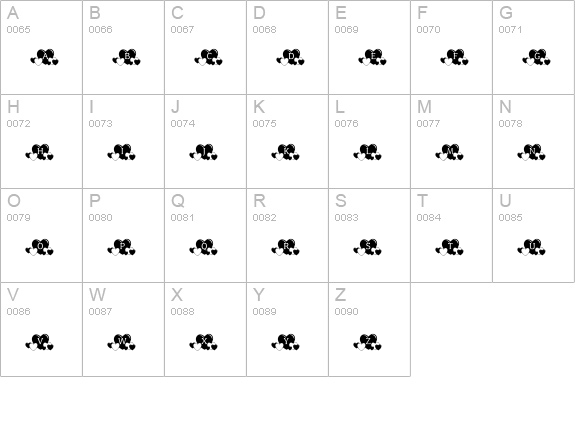
KR Lots Of Hearts Font Details
Introducing KR Lots Of Hearts font, a whimsical and charming typeface that is sure to capture hearts with its playful design. This delightful font is perfect for adding a touch of love and joy to any project, from greeting cards to posters to social media graphics. With its unique heart-shaped details and flowing curves, KR Lots Of Hearts font brings a sense of warmth and fun to your text. Whether you're creating a romantic message or simply want to spread some love, this font is the perfect choice. Best of all, KR Lots Of Hearts font is available for free download at FontsMarket.com. So go ahead and add a little extra love to your designs with this lovely and enchanting typeface.